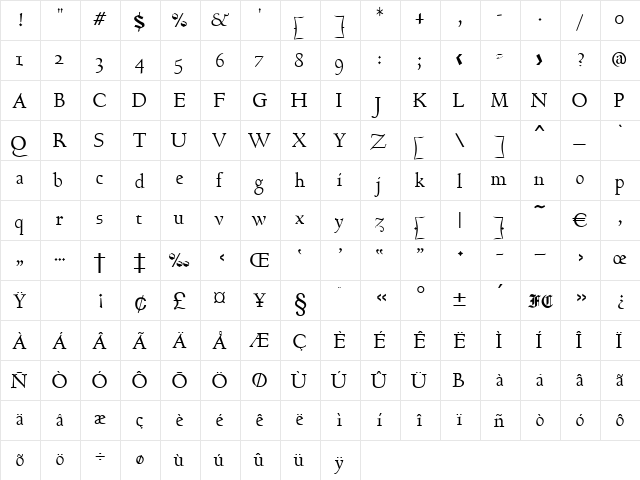
Cagliari Regular
Design Context for Cagliari Typeface
Cagliari takes a measured approach to typography — its balanced proportions and neutral character make it a reliable workhorse for both digital and print work.